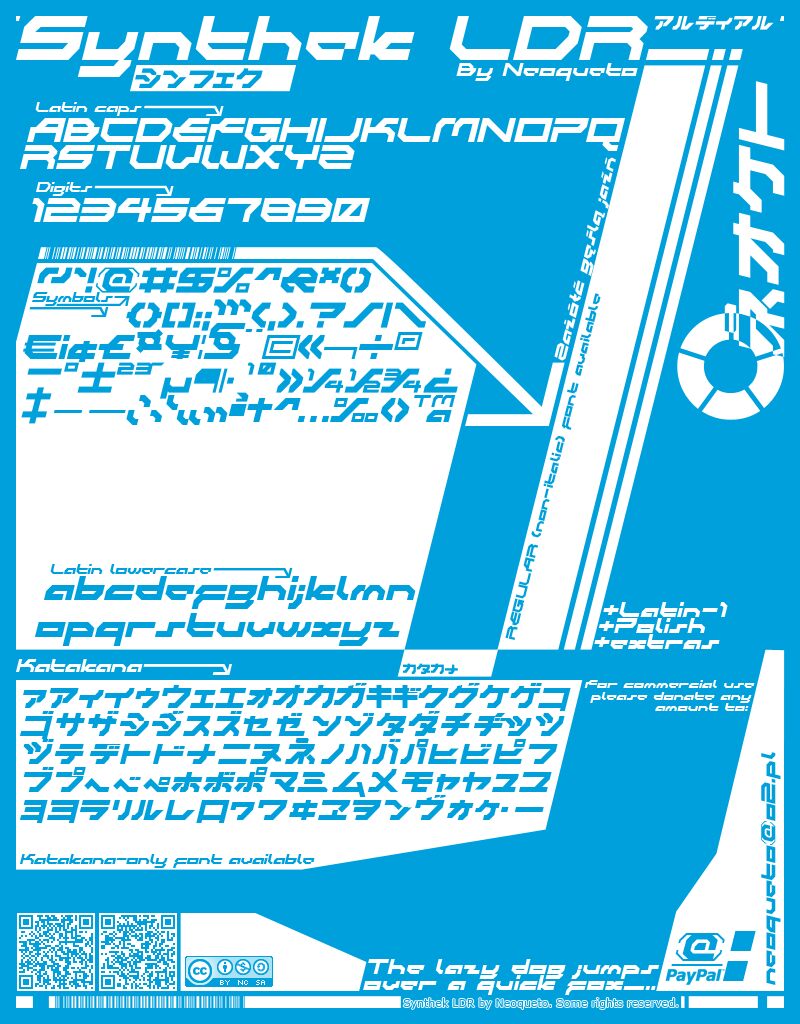
Synthek Kana LDR, created by MichaB "Neoqueto" Nowak, is a free Japanese-inspired display font with a hard-edged, mechanical build and tightly packed strokes. Wide bars, clipped corners, and sudden changes in width produce a highly compact, forceful silhouette.
It can turn a title into a piece of fictional interface graphics, making it especially convincing for arcade games and science-fiction posters. The same angular lettering suits electronic music artwork, streetwear branding, and packaging aimed at a tech-minded audience. Its strongest context is cyberpunk and futuristic entertainment, where the Japanese reference and severe geometry become part of the setting rather than neutral text.